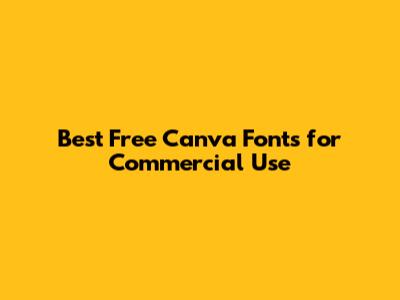
Best Free Canva Fonts For Commercial Use
Hey guys! Are you looking for the best free Canva fonts for commercial use? You've come to the right place! Choosing the right font is super important for making your designs look professional and on-brand, especially when you're using them for business. Canva offers a ton of fonts, but figuring out which ones you can use for commercial projects without getting into legal trouble can be a headache. So, let's dive into the world of Canva fonts and explore the top picks that are not only stylish but also completely free for commercial use. This means you can use them for your marketing materials, website, social media, and even products you sell, all without worrying about licensing fees or restrictions.
Top Free Canva Fonts for Commercial Projects
Alright, let’s get to the good stuff! Here are some of the best free Canva fonts that you can confidently use for your commercial projects. These fonts are not only free but also versatile and stylish, making them perfect for a wide range of design needs.
- Open Sans: This is a classic and super versatile font. It’s clean, modern, and easy to read, making it perfect for body text, headings, and everything in between. You can use it for websites, marketing materials, and even print projects. Open Sans is a go-to font for many designers because of its readability and neutrality. Its open forms and neutral appearance make it a safe bet for a wide range of applications, ensuring that your message is conveyed clearly and effectively. Furthermore, Open Sans boasts excellent legibility across various screen sizes and resolutions, making it ideal for digital platforms. Its clean lines and generous spacing contribute to a comfortable reading experience, reducing eye strain and enhancing comprehension. Additionally, Open Sans supports a wide range of languages and character sets, making it a versatile choice for global audiences. Whether you're designing a website, creating marketing materials, or crafting user interfaces, Open Sans provides a reliable and consistent typographic foundation that enhances the overall user experience. Its timeless appeal and functional design make it a valuable asset in any designer's toolkit, ensuring that your message is delivered with clarity and impact.
- Lato: Lato is another excellent choice for body text. It's a sans-serif font that's both modern and friendly. It works well in both digital and print formats. Lato's rounded details give it a warm and approachable feel, making it a great choice for brands that want to project a friendly image. It’s particularly well-suited for body text due to its excellent readability and clean design. Furthermore, Lato's versatility extends to various design contexts, from websites and mobile apps to print materials and presentations. Its balanced proportions and subtle nuances ensure that it remains legible even at small sizes, making it ideal for content-heavy layouts. Additionally, Lato supports a wide range of languages and character sets, making it a reliable choice for international projects. Whether you're crafting a user interface, designing a brochure, or creating a social media campaign, Lato provides a cohesive and professional typographic foundation that enhances the overall visual appeal and user experience. Its modern aesthetic and functional design make it a valuable asset in any designer's toolkit, ensuring that your message is communicated effectively and with style.
- Roboto: Roboto is a modern sans-serif font that's widely used on Android devices. It's clean, geometric, and highly readable. Roboto is great for both headings and body text, making it a versatile option for any project. Its mechanical skeleton and largely geometric forms lend it a sense of modernity and efficiency, making it suitable for technical and corporate applications. Furthermore, Roboto's excellent readability ensures that your message is conveyed clearly and effectively, whether it's displayed on a website, mobile app, or print document. Its balanced proportions and subtle nuances contribute to a comfortable reading experience, reducing eye strain and enhancing comprehension. Additionally, Roboto supports a wide range of languages and character sets, making it a versatile choice for global audiences. Whether you're designing a user interface, creating marketing materials, or crafting editorial content, Roboto provides a reliable and consistent typographic foundation that enhances the overall user experience and reinforces your brand's identity.
- Montserrat: If you're looking for a bold and modern font, Montserrat is a great option. It's perfect for headings, logos, and other display purposes. Montserrat’s geometric design and strong presence make it ideal for capturing attention and conveying a sense of modernity and sophistication. Its clean lines and balanced proportions ensure that it remains legible even at larger sizes, making it suitable for headlines, posters, and branding elements. Furthermore, Montserrat's versatility extends to various design contexts, from websites and mobile apps to print materials and environmental graphics. Its strong personality and distinctive character make it a valuable asset in any designer's toolkit, allowing you to create memorable and impactful designs that stand out from the crowd. Whether you're designing a logo, crafting a website header, or creating a promotional campaign, Montserrat provides a solid typographic foundation that enhances the overall visual appeal and reinforces your brand's message.
- Raleway: Raleway is an elegant sans-serif font that’s perfect for adding a touch of sophistication to your designs. It works well for logos, headings, and other display purposes. Raleway's refined letterforms and delicate strokes convey a sense of elegance and sophistication, making it a popular choice for luxury brands and high-end designs. Its clean lines and balanced proportions ensure that it remains legible even at smaller sizes, making it suitable for both headings and body text. Furthermore, Raleway's versatility extends to various design contexts, from websites and magazines to branding materials and invitations. Its distinctive character and timeless appeal make it a valuable asset in any designer's toolkit, allowing you to create designs that exude style and refinement. Whether you're designing a logo, crafting a website layout, or creating a wedding invitation, Raleway provides a sophisticated typographic foundation that enhances the overall visual appeal and elevates your brand's image.
Final Thoughts
So there you have it – a rundown of the best free Canva fonts for commercial use! Choosing the right font is essential for creating professional and impactful designs. By understanding font licensing and exploring the fonts available in Canva, you can create stunning visuals without breaking the bank or worrying about legal issues. Happy designing, folks! Remember, your font choice is a powerful tool that can enhance your brand's identity, convey your message effectively, and create a lasting impression on your audience. So, take the time to explore different font options, experiment with font pairings, and choose fonts that align with your brand's personality and design goals. With Canva's extensive font library and user-friendly design tools, you have everything you need to create visually stunning designs that capture attention and drive results. Happy designing, and may your font choices always be on point!